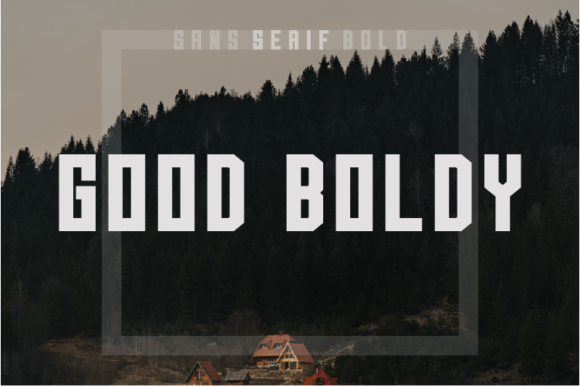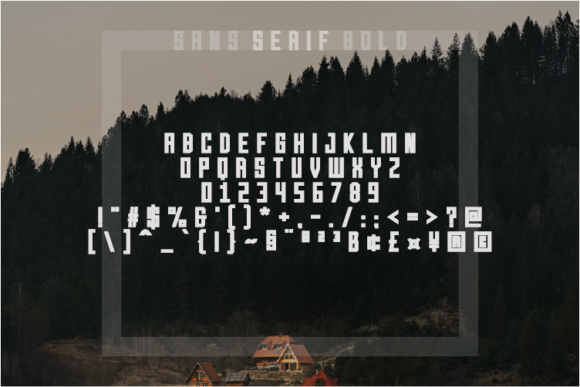
The Perfect Font for the Perfect Project
As designers, we’ve all been there – staring at a blank page, desperately searching for the perfect font to bring our vision to life. It’s that moment when everything falls into place, and the perfect combination of style and readability clicks. For me, that moment came when I discovered the Good Boldy Font. Its unique blend of casual charm and sophistication made it the perfect fit for my latest project.
The Good Boldy Font is a bold sans serif font, carefully handcrafted to become a true favorite among designers. Its versatility and readability make it a valuable addition to any design project. Whether you’re working on a busy background or a standalone headline, the Good Boldy Font is sure to shine. As a designer, having a reliable and effective font at your disposal can make all the difference between a good project and a great one.
Key Features of Good Boldy Font
- Unique Characteristics: Good Boldy Font features a bold and modern design, with clean lines and geometric shapes that make it perfect for headlines and titles.
Good Boldy Font Review
I recently had the chance to work with the Good Boldy Font, and I have to say, it’s a mixed bag. There are some things that really stand out, and some things that fall short.
- Unique Personality**: The Good Boldy Font has a distinct, bold personality that really shines through in headings and titles.
- Legibility**: Despite its boldness, the font is still surprisingly legible, even at smaller sizes.
- Wide Character Support**: I was impressed by the font’s wide character support, which made it easy to use in a variety of languages.
- Limited Variations**: While the font is bold, it’s a bit too uniform in its design. There could be more variations in weight, width, and style.
- Not Ideal for Body Text**: While the font is great for headings, it’s not the best choice for body text, as it can be a bit overwhelming.
Overall, the Good Boldy Font is a solid choice for headings and titles, but may not be the best choice for body text or projects that require a lot of variation in font style. With a bit more development, I think this font could really shine.
Tips for Getting the Most Out of Good Boldy Font
Use Good Boldy Font to add a touch of personality to your designs. This font is perfect for headings and titles, as it adds a bold and eye-catching touch. To get the most out of Good Boldy Font, pair it with a clean and simple font for the body text.
Good Boldy Font is perfect for:
- Marketing materials
- Posters and flyers
Alternatives to Good Bold Font
Montserrat is a sans-serif typeface that was designed specifically for digital media. It’s a popular choice among designers due to its clean and modern aesthetic. Montserrat is great for use in headings and titles where you want to make a bold statement. Compared to Good Bold Font, Montserrat has a more geometric and technical feel.
2. Arial Black
Arial Black is a sans-serif typeface that is known for its bold and condensed design. It’s a great choice for use in headings and titles where you want to create a sense of urgency or importance. Compared to Good Bold Font, Arial Black is more dramatic and attention-grabbing, but may not be as versatile in terms of use.
3. Impact
Impact is a sans-serif typeface that was designed to be bold and eye-catching. It’s a great choice for use in titles and headings where you want to create a sense of drama or emphasis. Compared to Good Bold Font, Impact is more extreme and attention-grabbing, but may not be suitable for use in body text due to its large x-height.